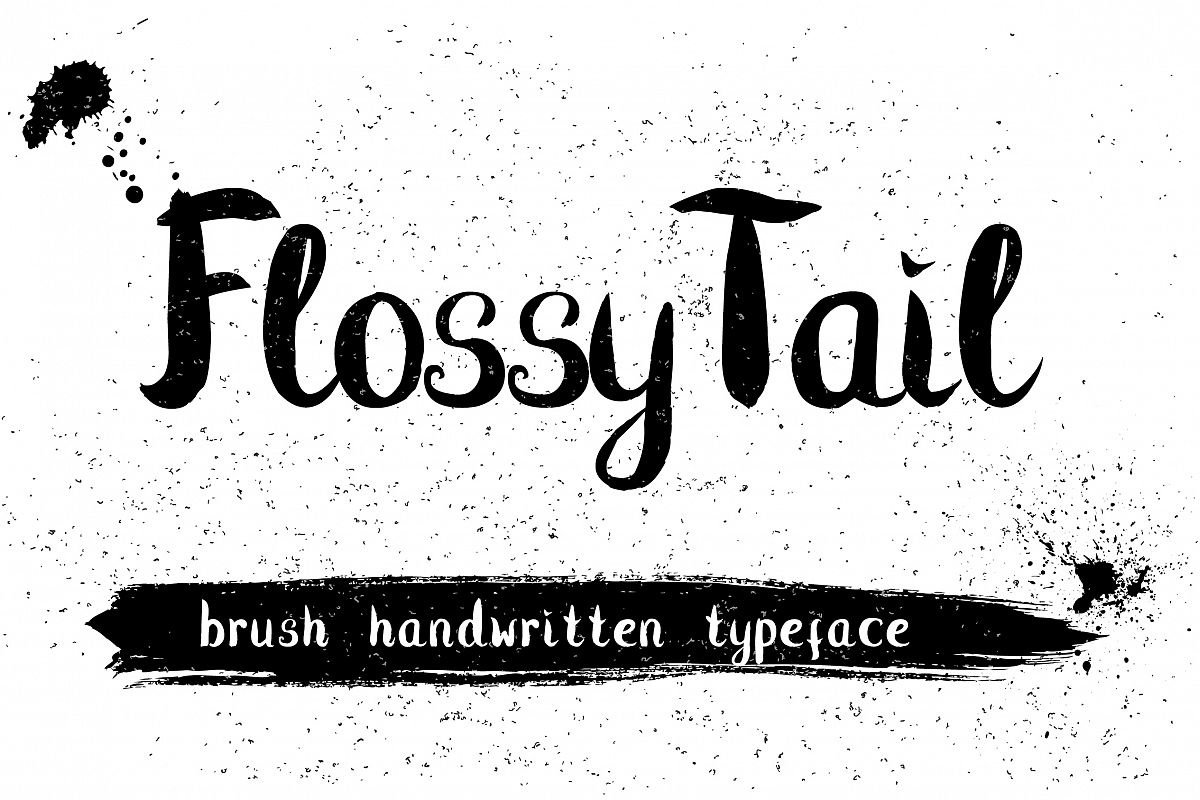
Flossy Tail brush handwritten font
FlossyTail Bold
Flossy Tail is a beautiful handwritten font - cute, fun, with  many ligatures, alternates, and doodles that giving you to make a lot of combination for your design
This fonts can be used for various purposes,such as banners,headings, signature, logos, t-shirt, letterhead, signage, lable, news, posters, badges etc.